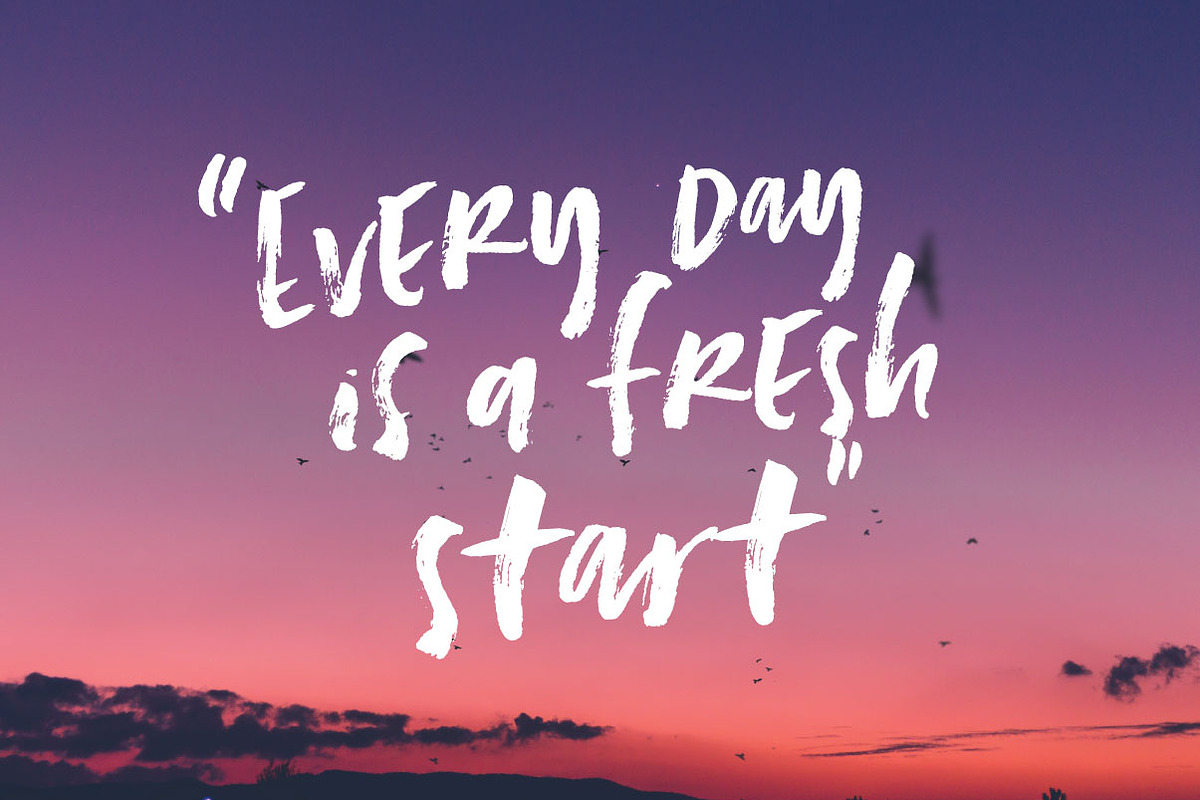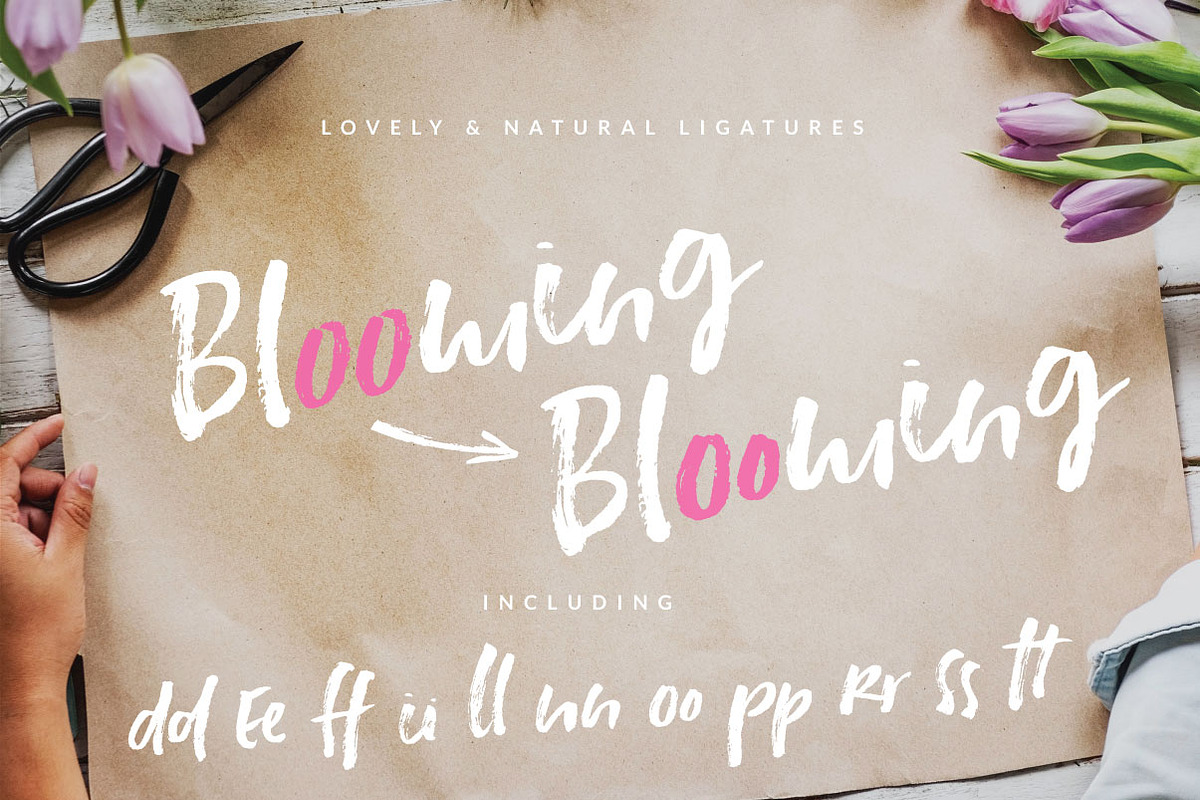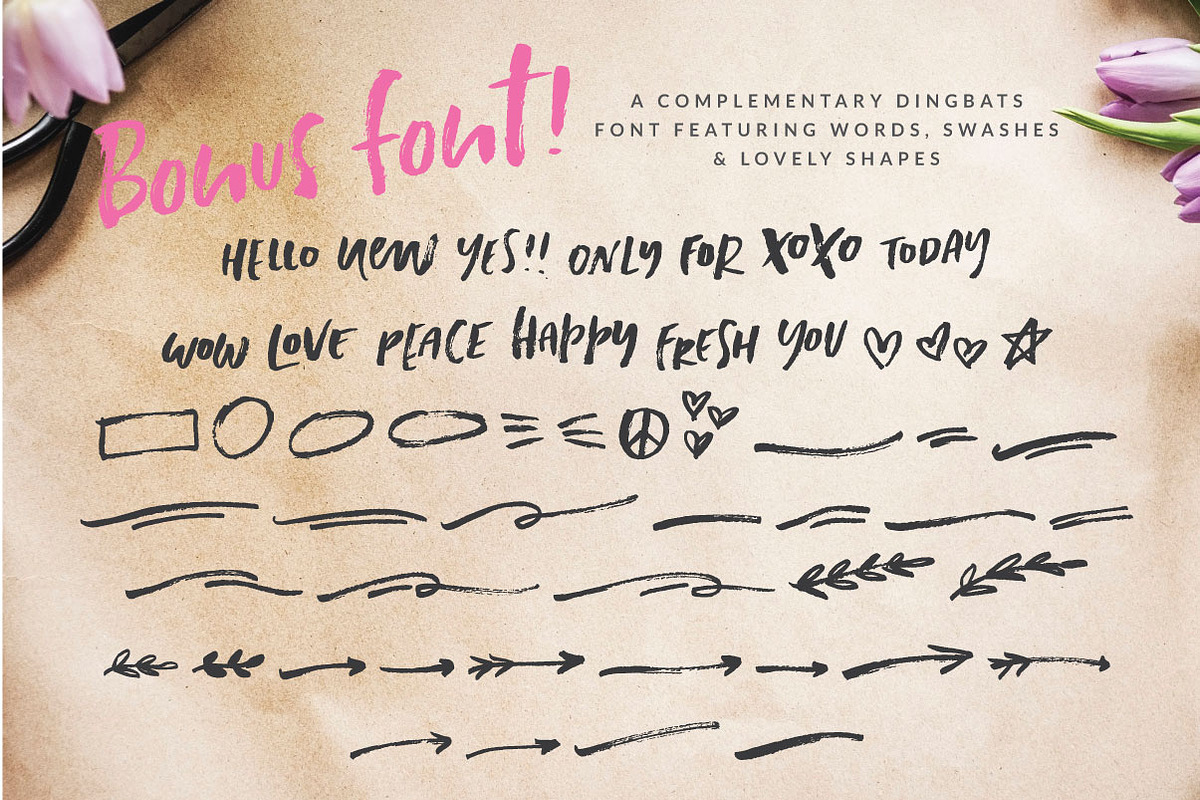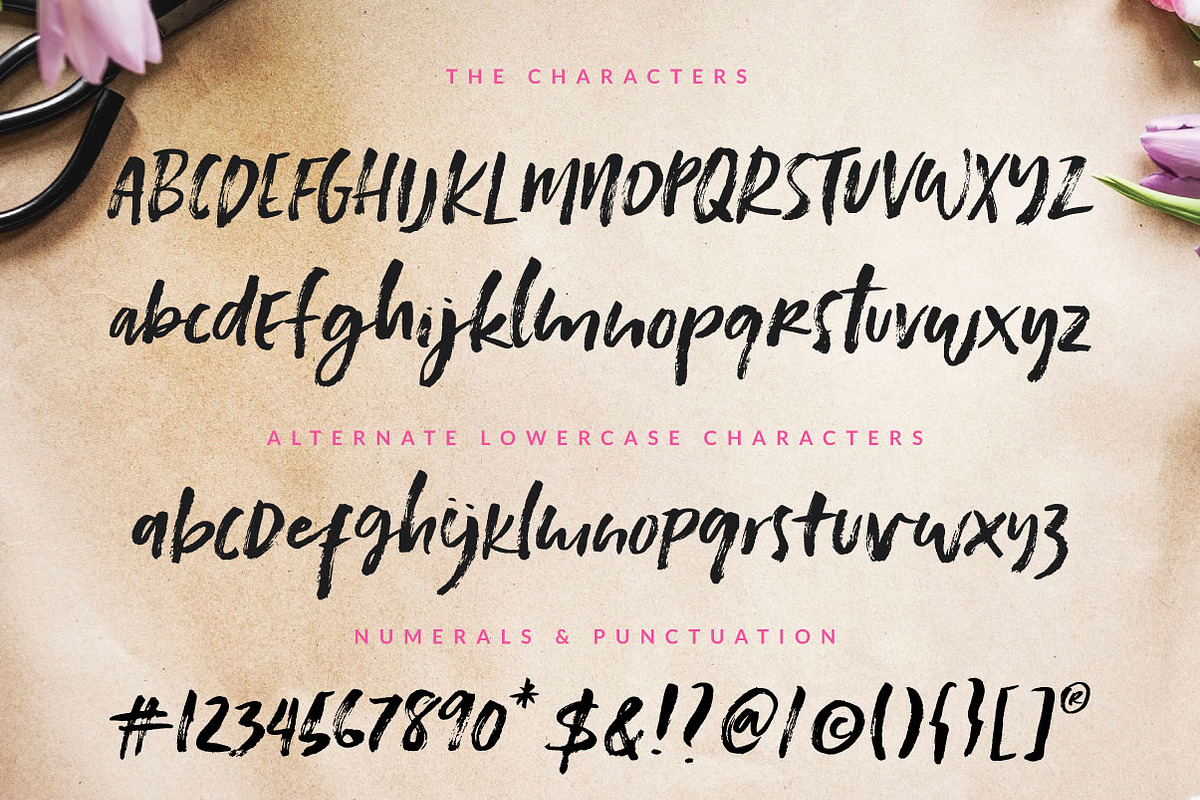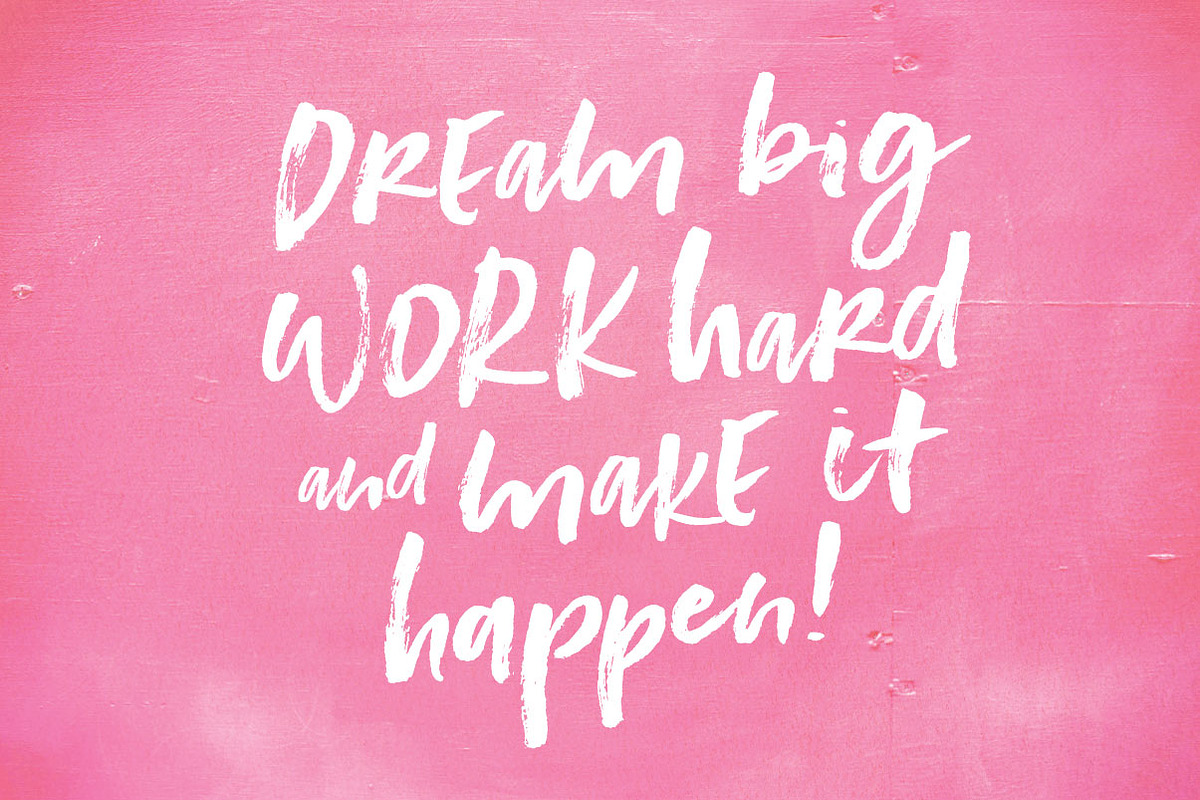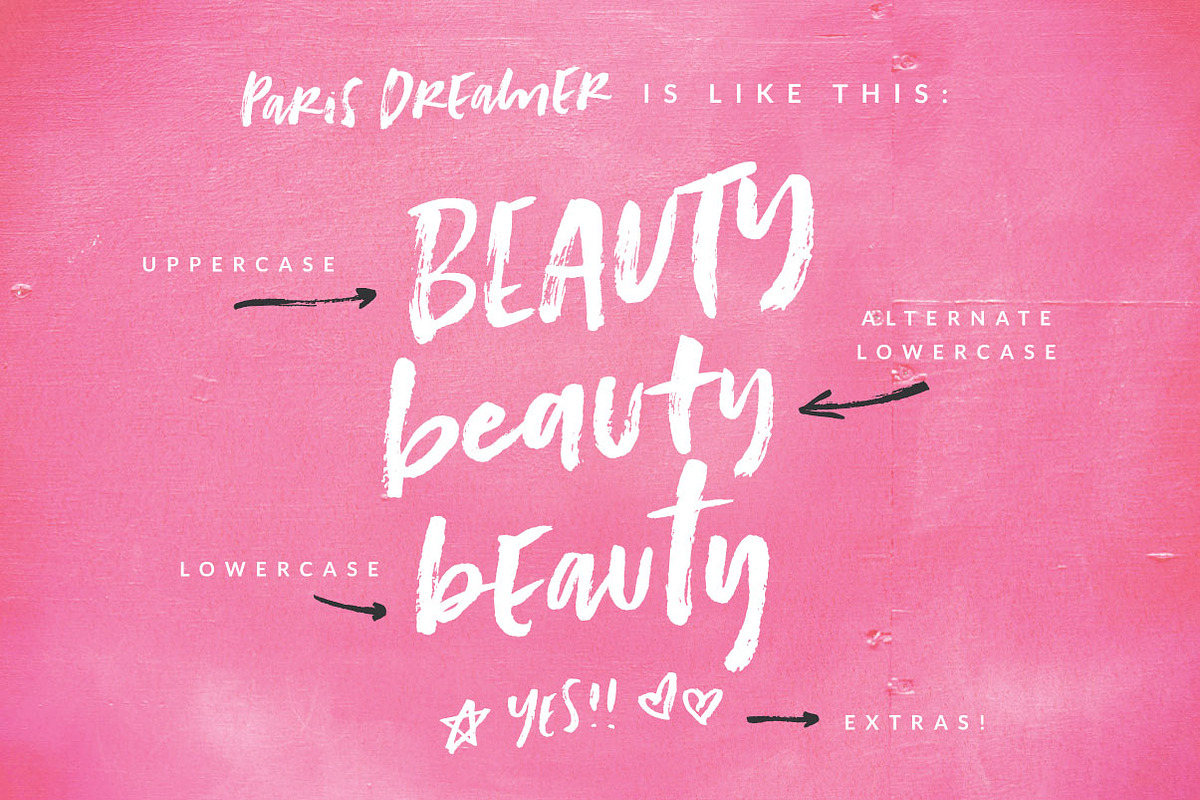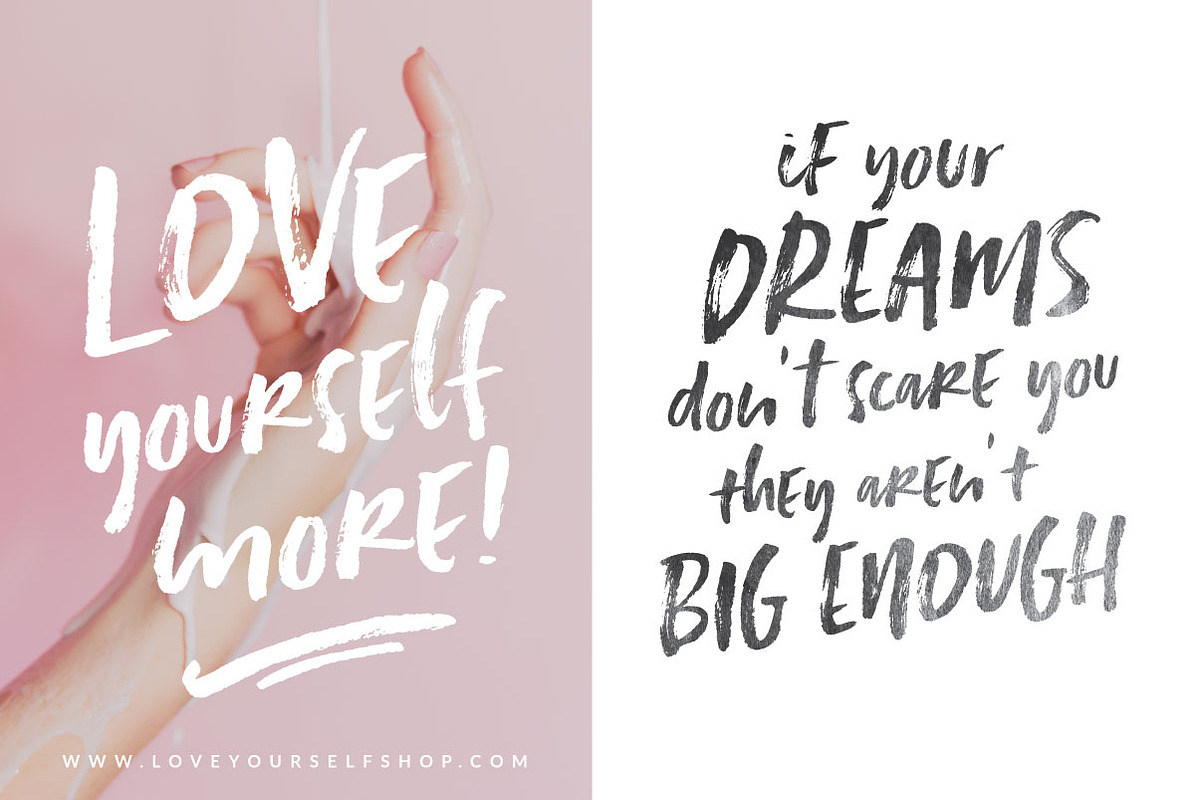
Paris Dreamer Script + Bonus font
Paris Dreamer Font is what happens when passion meets a brush pen on a paper!
A font that will certainly not go unnoticed. Inspired by a mix of romantic freedom, feminine and casual looks. Featuring an alternate lowercase set that will allow you to change the font’s behavior between common letters and achieve that natural and organic look you see on printed and digital typefaces.
Comes with a BONUS set of popular words and expressions, such as: “Hello”, “New”, “Yes!!”, “Only”, “For”, “XoXo”, “Today”, “Love”, “Peace”, “Happy”, “Fresh” and many more. Symbols, arrows, and also stylish lines and strokes to play around with underlined texts.
Whether you’re looking for a catchy and trendy font for marketing purposes, branding or a complete logo redesign; the Paris Dreamer will be a great asset for your next big project.
A great choice for print or web, books, magazines, posters, brochures, social media images and quotes posts, this font will give your imagery the extra-punch you’re looking for.
Full upper and lowercase
Numerals and Punctuation
Alternate Lowercase Set
Accents (Multi-lingual support)
Traditional Double Letter Ligatures
Bonus font including dingbat graphics